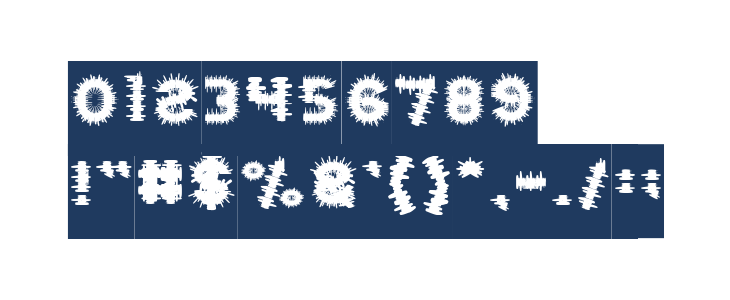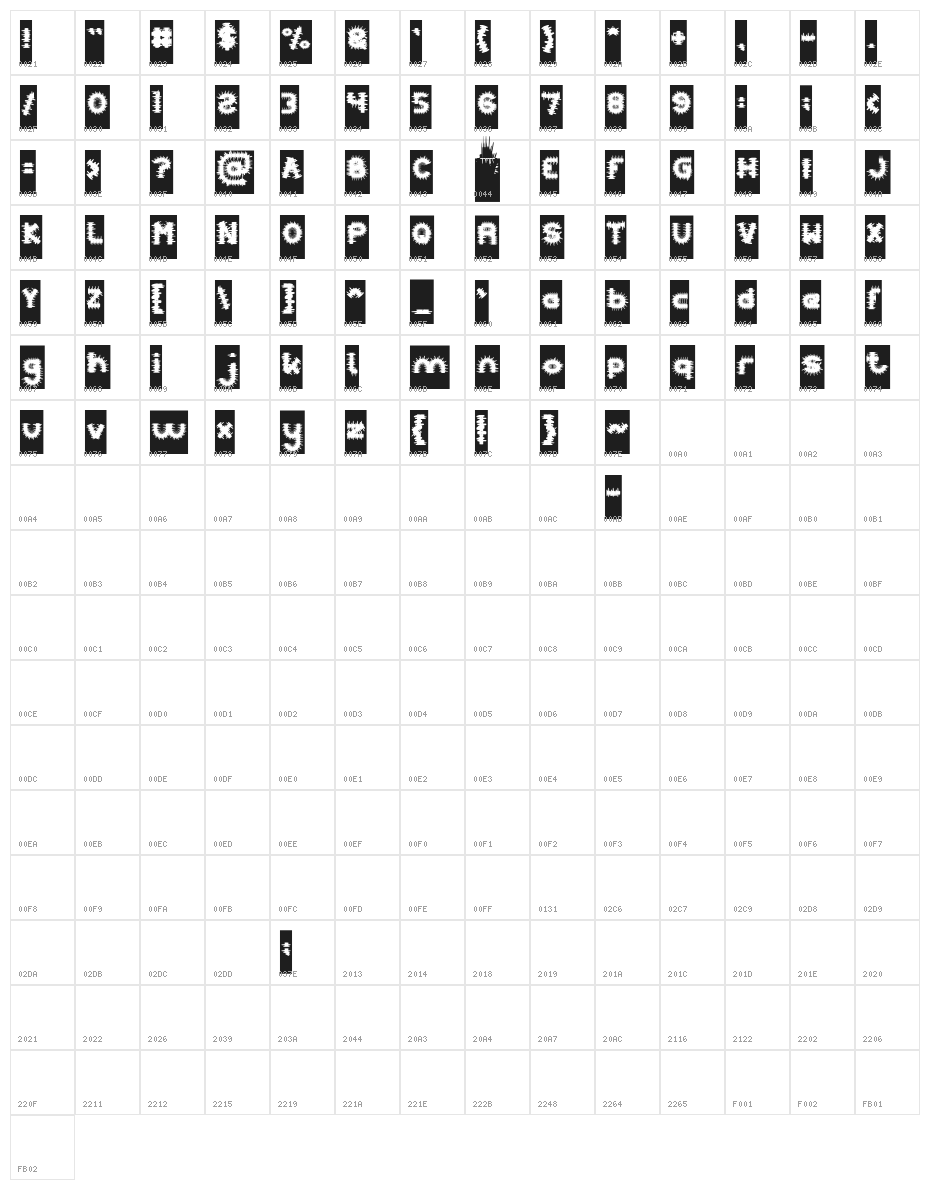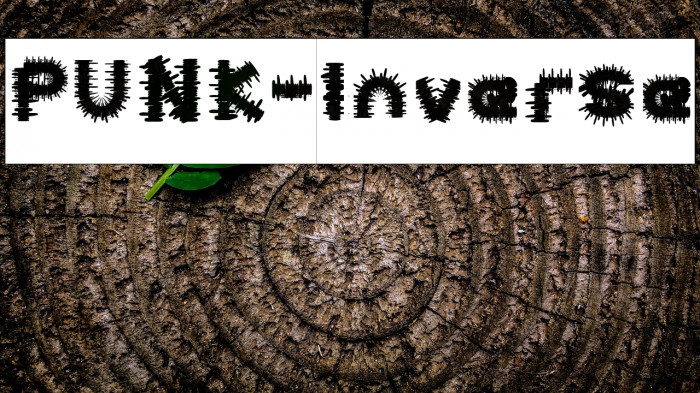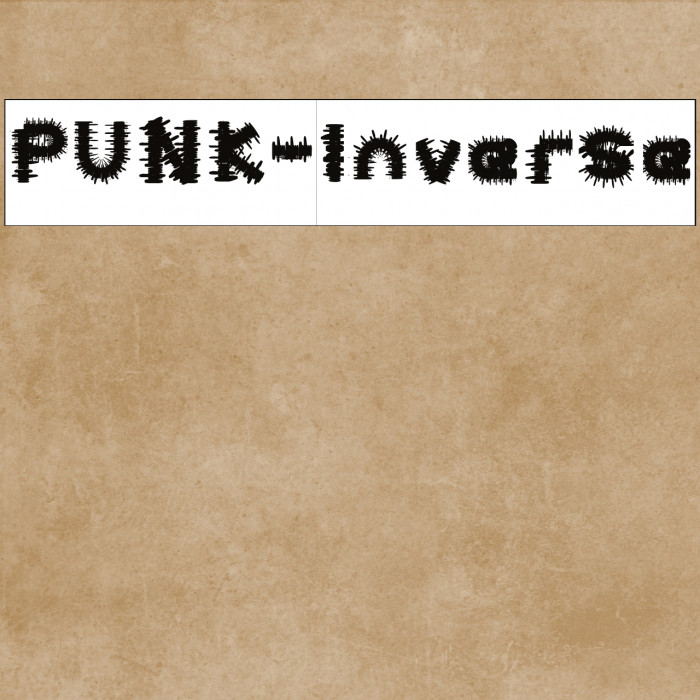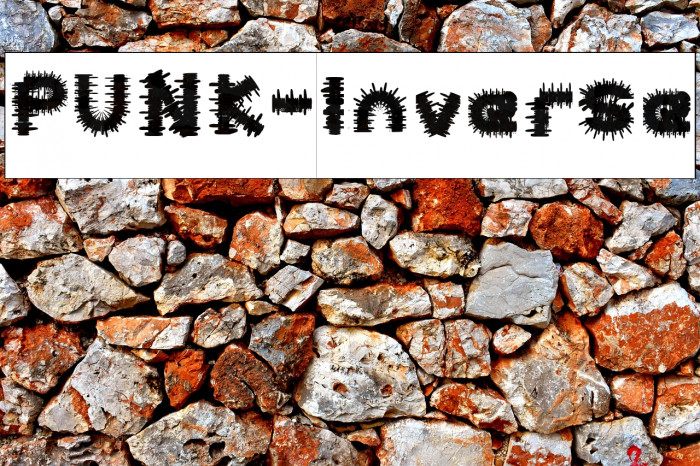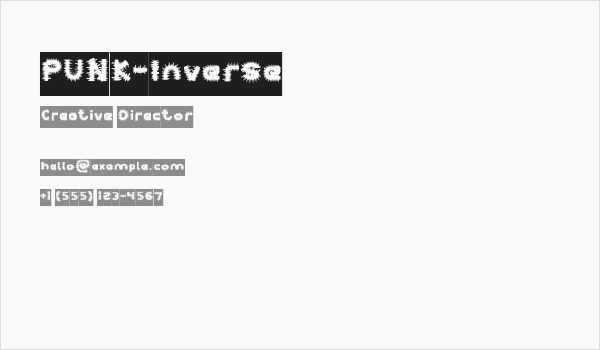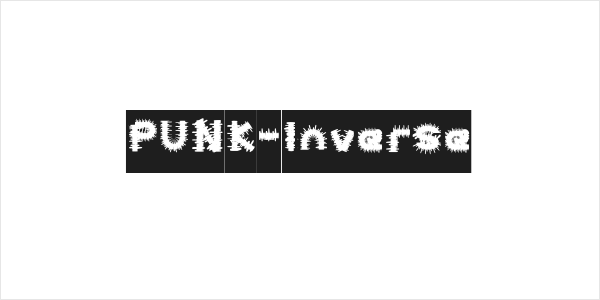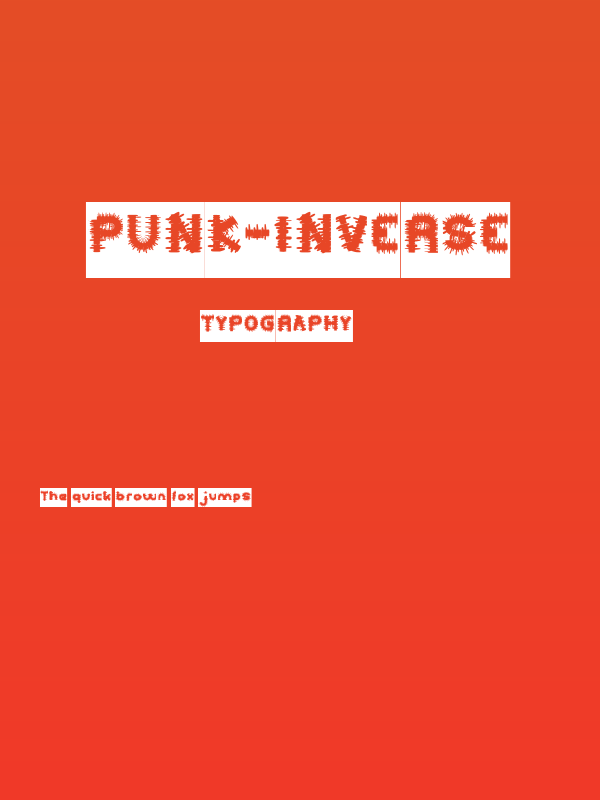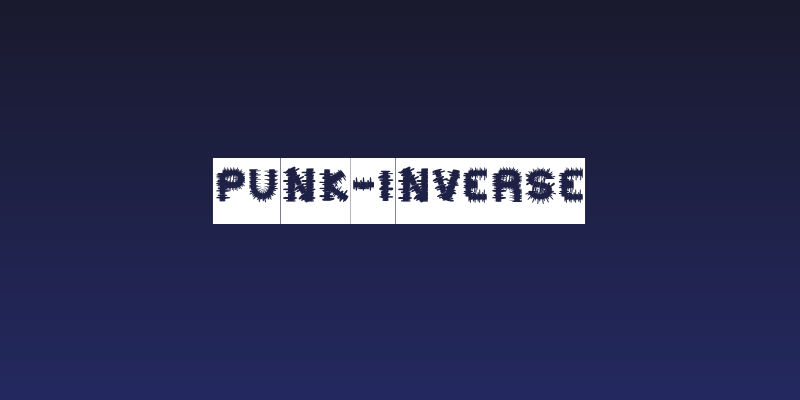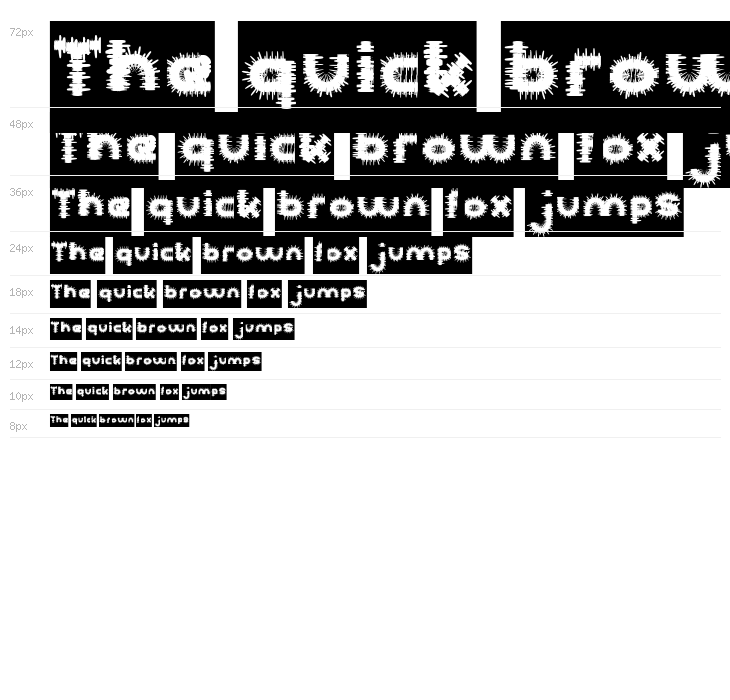
PUNK-Inverse Font
PUNK-Inverse Description
This font features a bold, edgy design with a spiky, distressed appearance that gives it a rebellious and energetic vibe. The characters are heavily stylized with jagged edges and an irregular outline, creating a sense of movement and chaos. The uppercase and lowercase letters maintain a consistent style, while the numbers and special characters complement the overall aesthetic. This font is highly decorative and captures attention with its unique and unconventional look, making it ideal for projects that require a strong visual impact.
| Overall Style | Modern, Punk |
| Proposed Projects | Ideal for music album covers, punk-themed posters, edgy branding, and event flyers. |